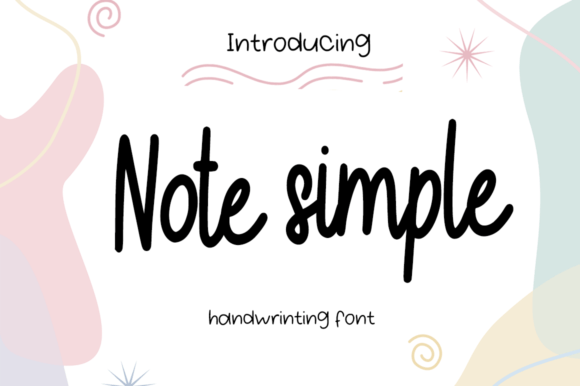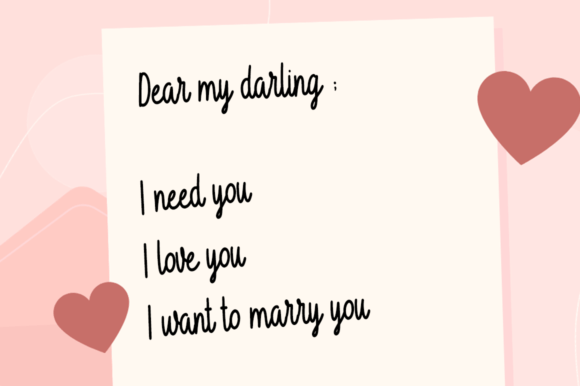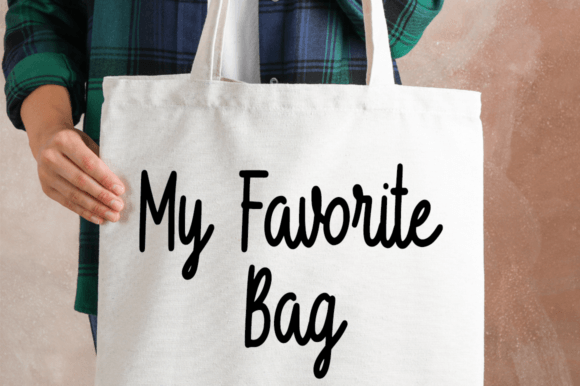
Note Simple Font
About the Note Simple Font
Get ready to be inspired by Note Simple Font, a fresh and dynamic typeface for modern creators. The font is made with natural and elegant handwriting, suitable for the needs of those of you who want to use it for a variety of amazing purposes. Maybe you can use this in various media to make it look attractive and natural.
Note Simple Font’s elegant, handwritten style is ideal for headlines, short text blocks on invitations or packaging, and branding elements requiring a touch of sophistication. It works particularly well in projects emphasizing a handcrafted or personal feel. Avoid using it for body text or lengthy paragraphs; its delicate nature makes extended reading difficult.
Its inherent personality is refined and approachable, lending itself to brands focused on quality, craftsmanship, or personal services. Consider pairing it with a clean sans-serif like Lato for a modern contrast or a classic serif like Garamond for a more traditional feel. These pairings provide readability for supporting text while letting Note Simple Font shine in its intended applications.
A script font such as Great Vibes could also complement Note Simple’s natural flow, enhancing a luxurious or romantic brand image, while a geometric sans-serif would create a striking juxtaposition, highlighting Note Simple’s organic forms.
Note Simple Font Usage Examples
Note Simple Font Example